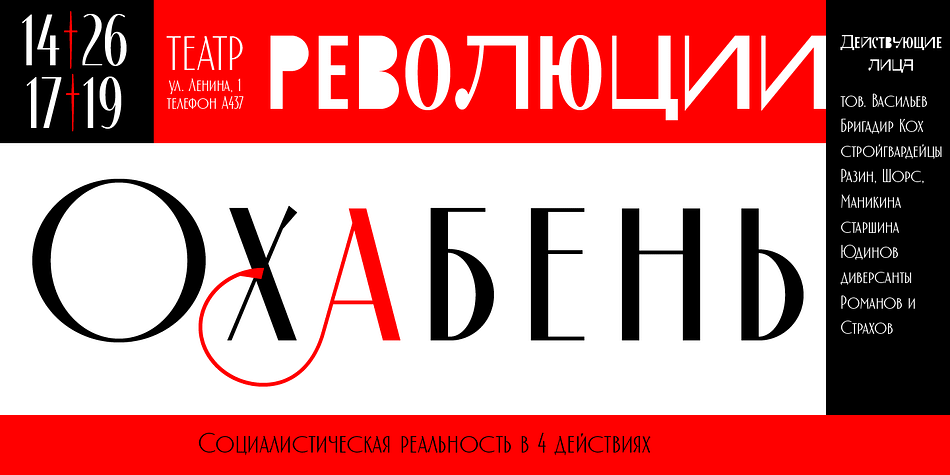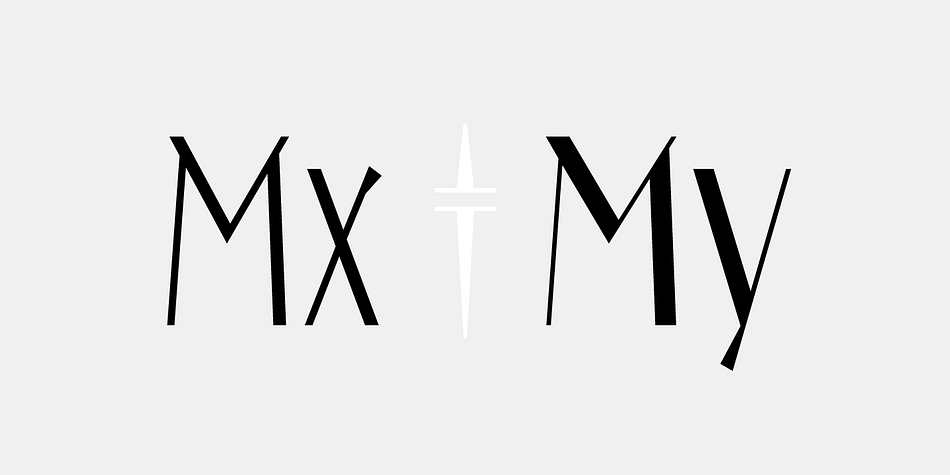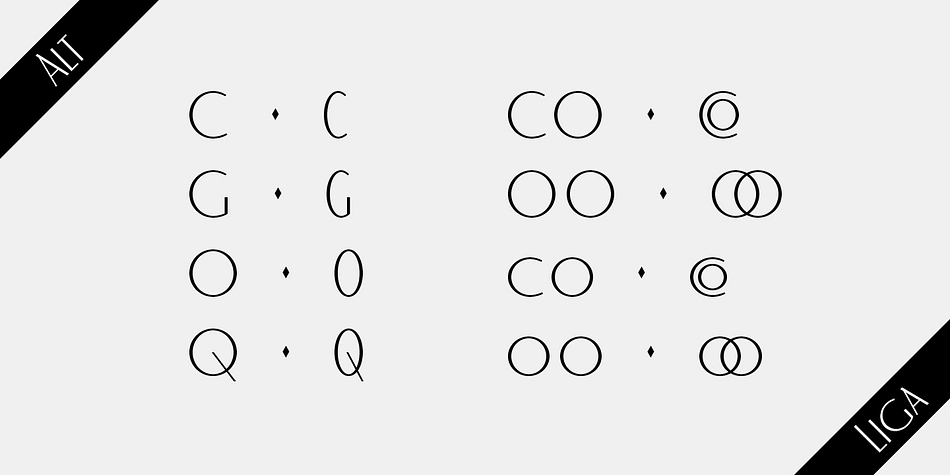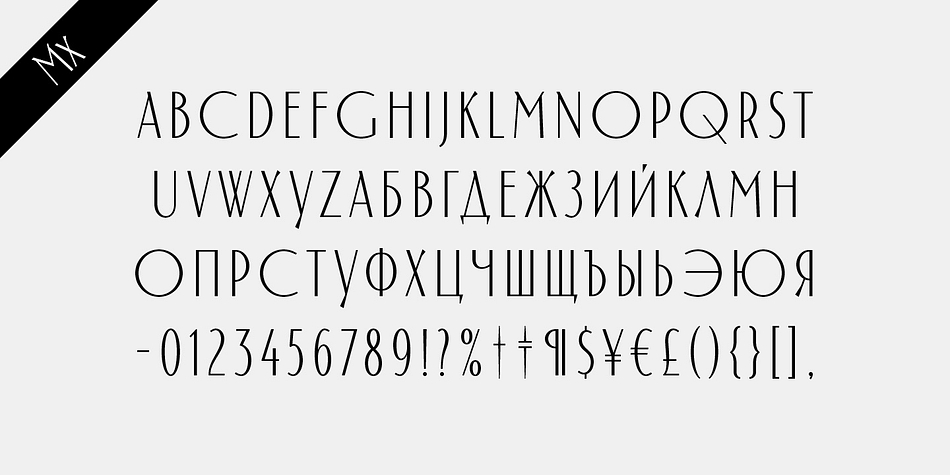
Designed by Valery Zaveryaev, Mx My is a display sans and art deco font family. This typeface has two styles and was published by Gaslight.
Clean, inspired by russian constructivism, duo of fonts - Mx and My.
My has more contrast than Mx. My also has optional swashes. Both fonts have numerous alternatives and ligatures as well as a small triangle in place of a drop.
This pair of fonts is great for fashion, editorial, posters and so on.